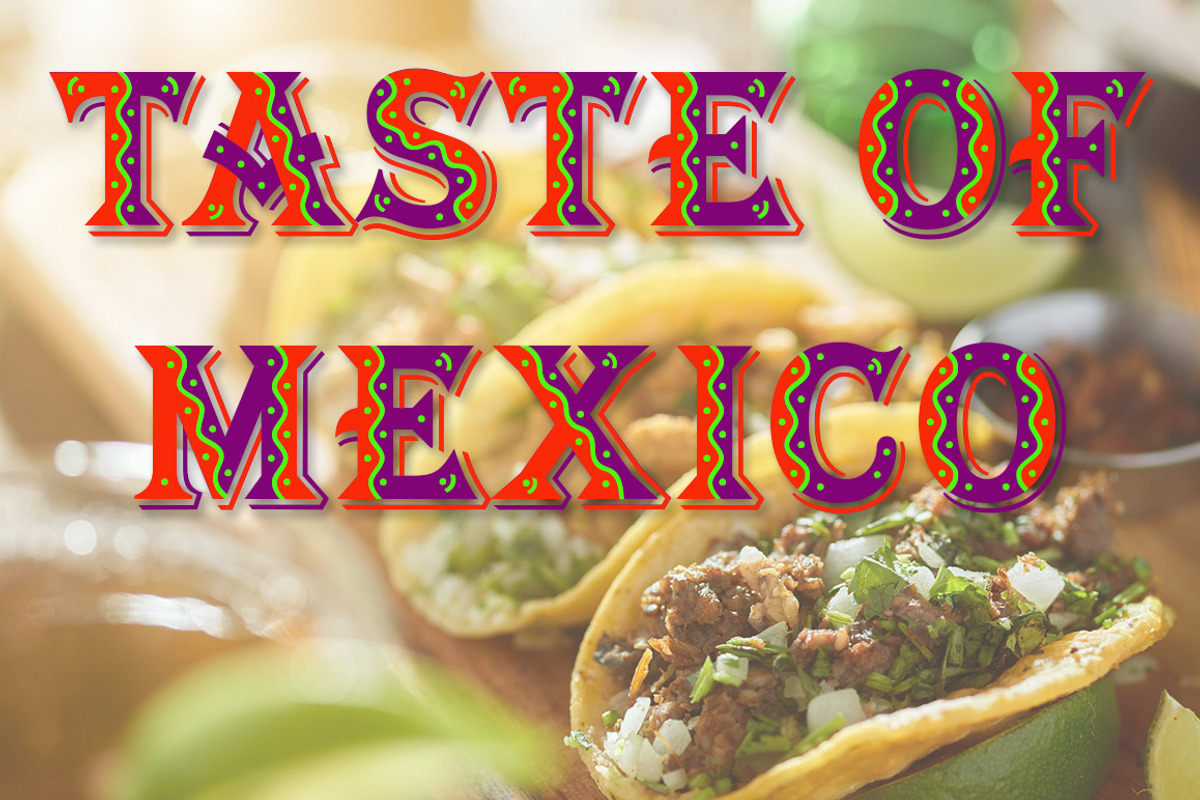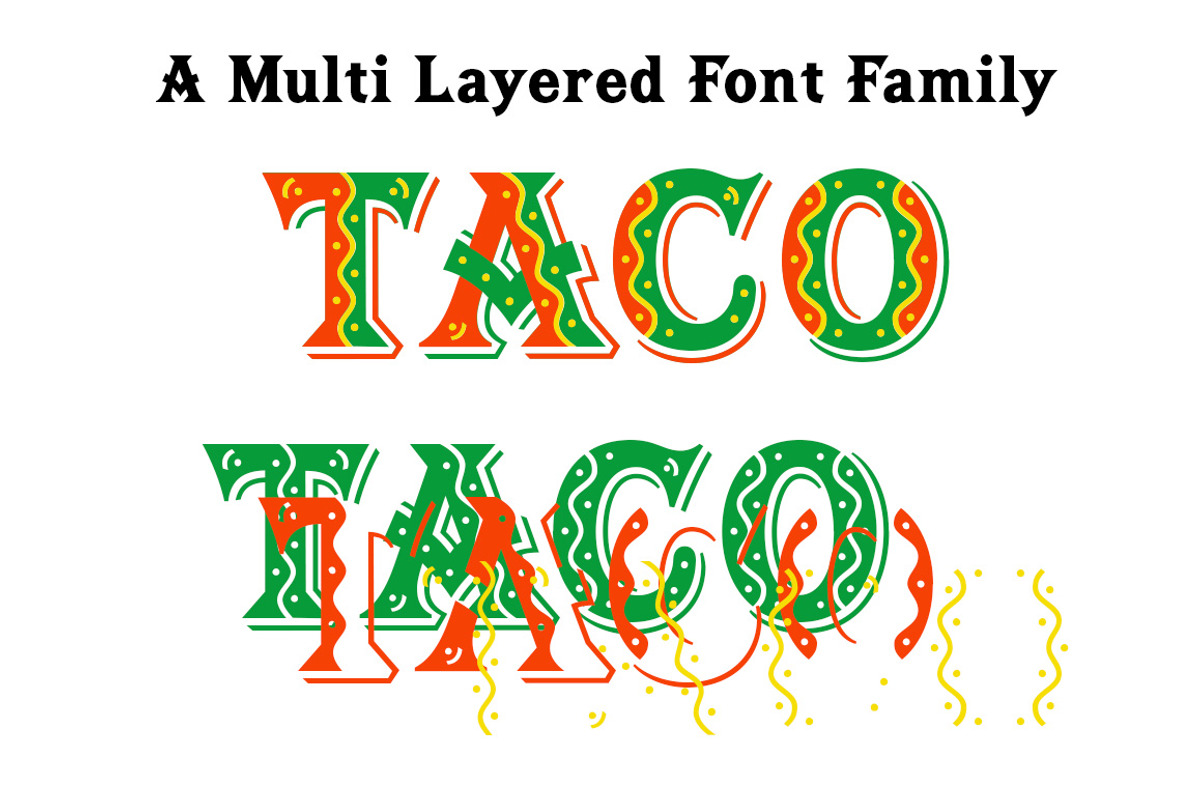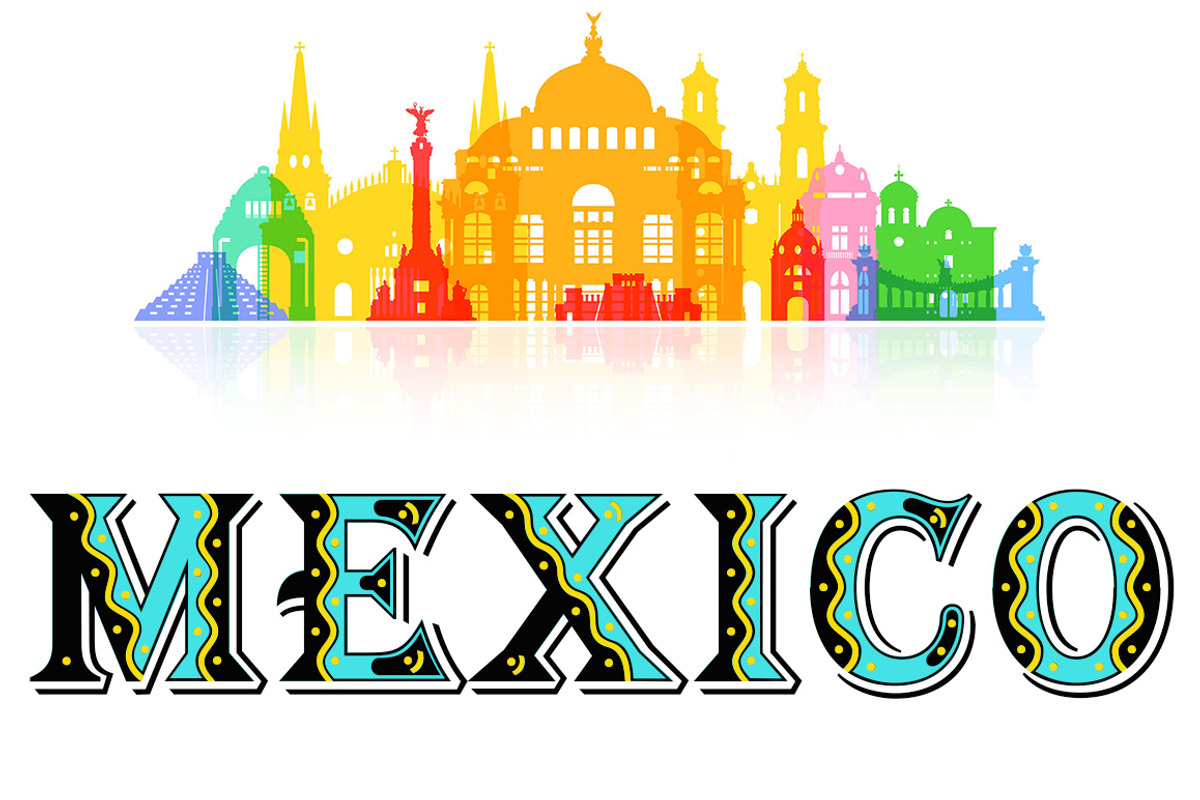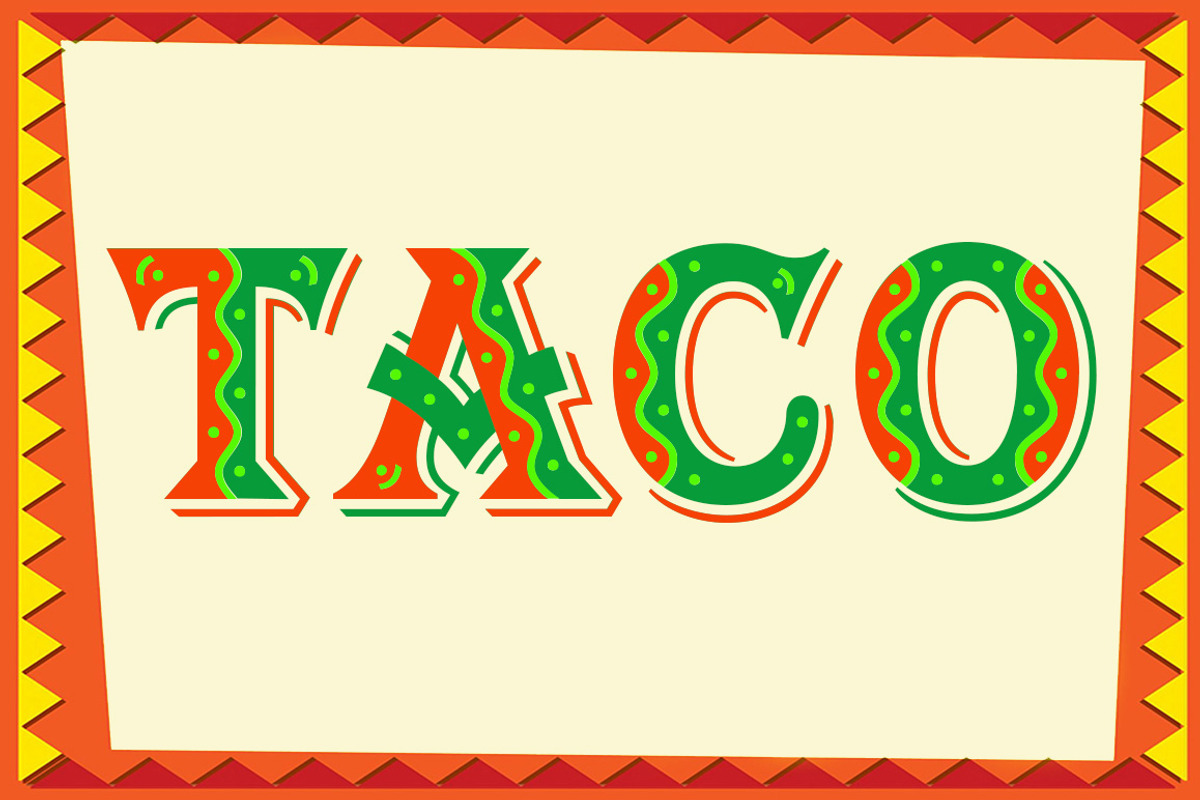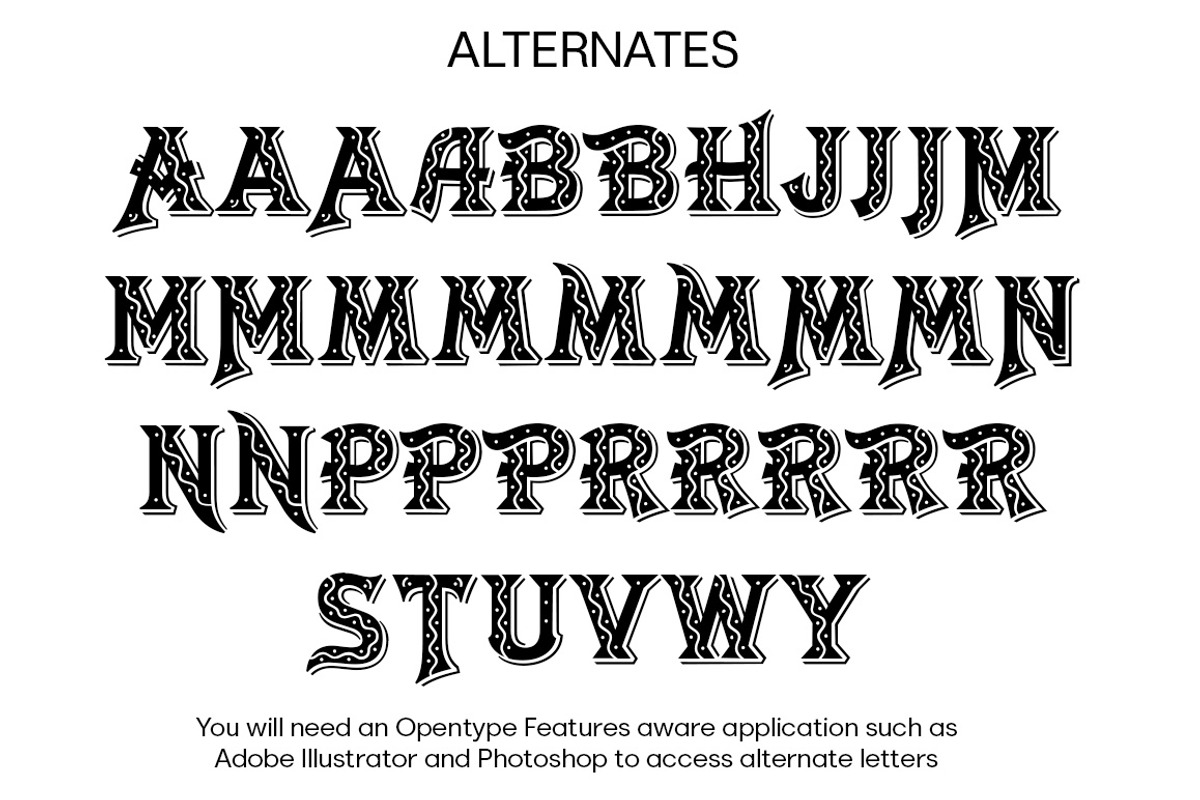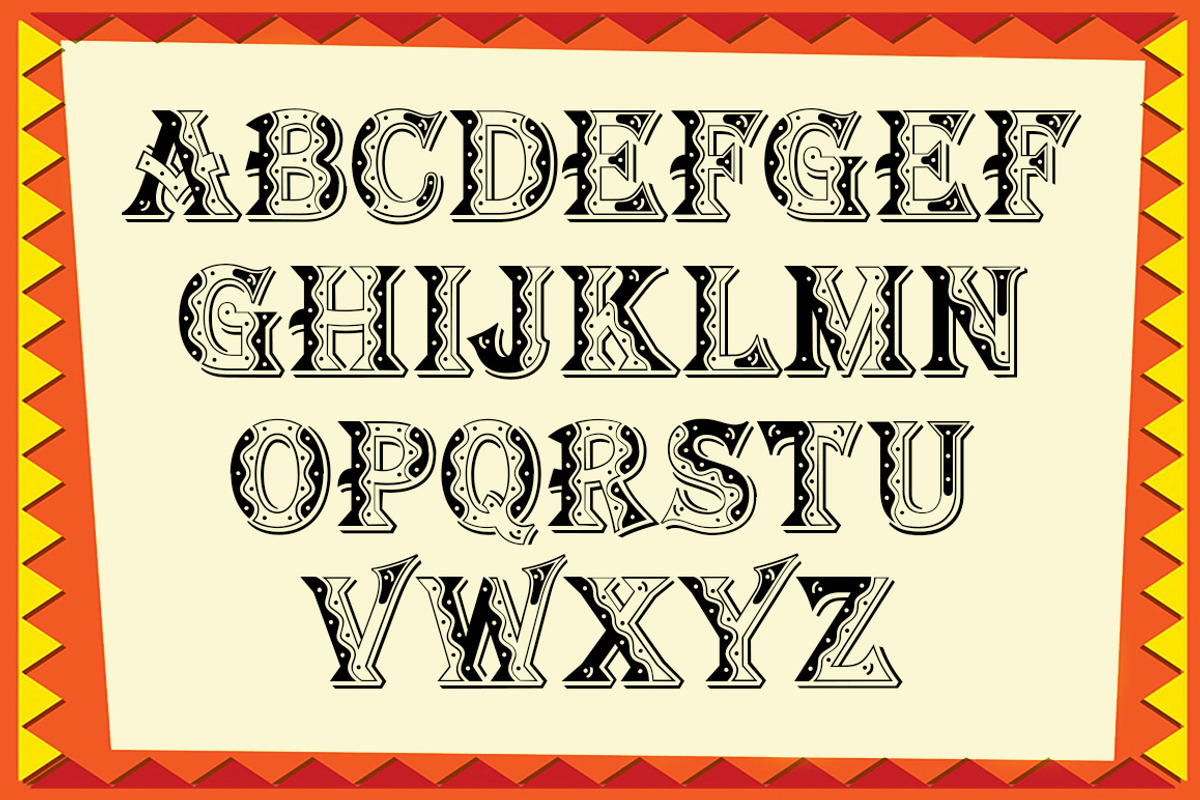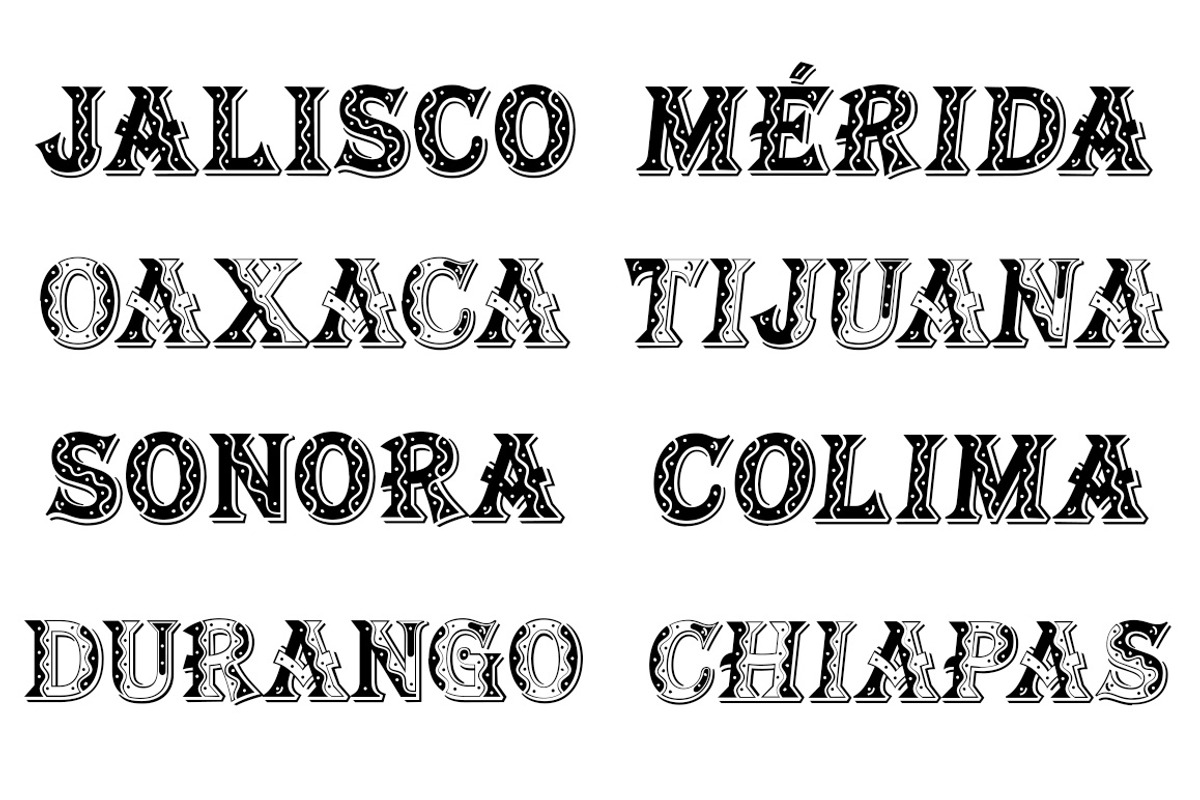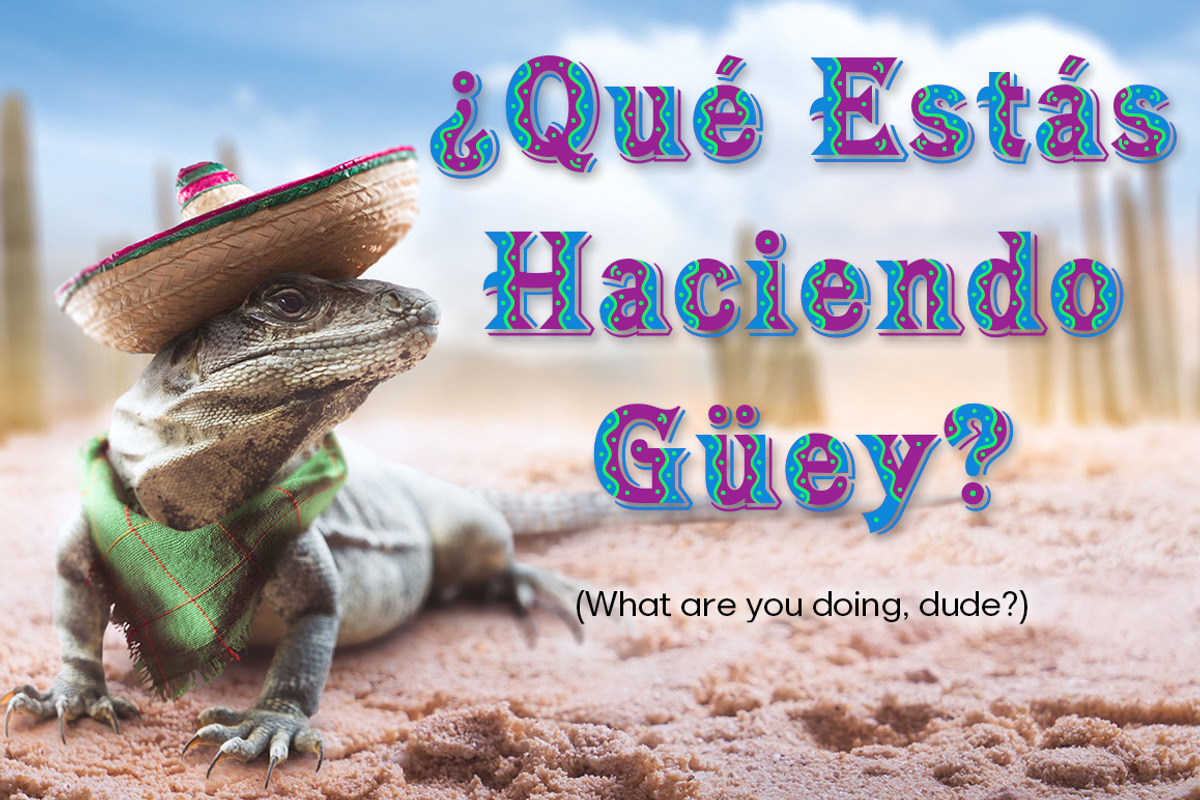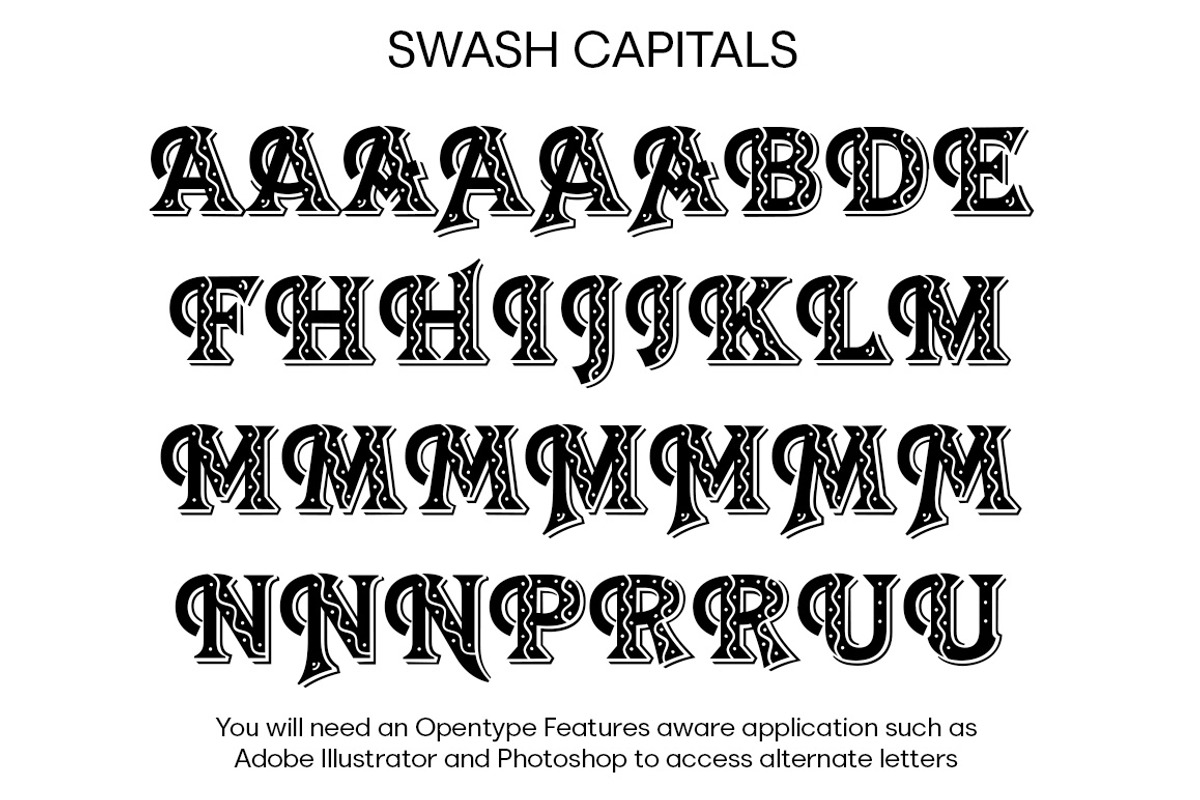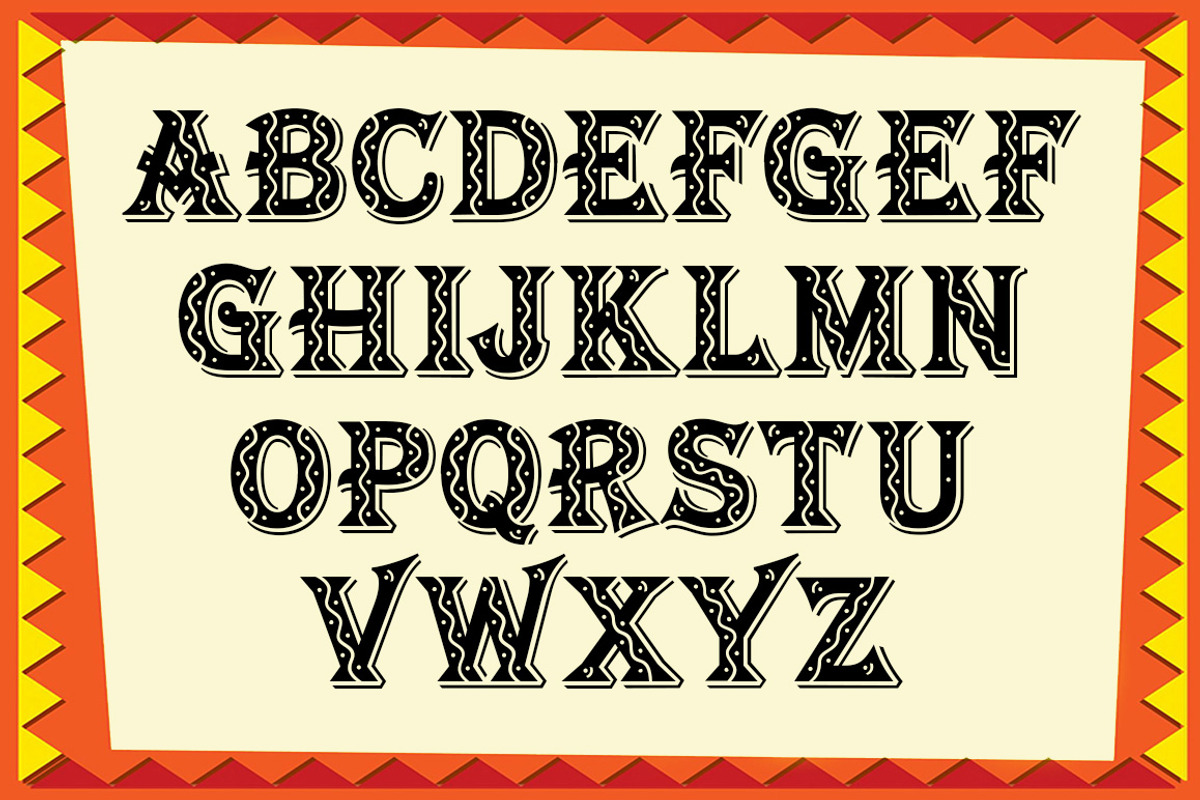
Taco
Taco is a new Mexican style font family based on our Tavern and Algerian Mesa type designs.
When I finished the extra heavier weights for Tavern I decided to play around with a decorated version, the extra bold letters allowed for much more room to work with an inlay pattern.
After experimenting with several designs I decided on a Mexican pattern because the original base font is very popular in Mexican restaurant logos and menus plus it's frequently used on Tequila bottle labels.
I originally planned three weights for the Taco font family, however, after completing the bold weight I've decided to release it now so you may put it to use while the regular and extra bold are being produced, sorry I can't estimate a release date for the two other weights.
Opentype features aware applications are also needed for accessing the many alternate glyphs in Taco, all the alternates that you love in our Tavern fonts are also available in Taco.
The inspiration for the Taco name of this font family was from a homemade Taco dinner I made for a guest at my house, after dinner I searched to see if there was a commercial font named Taco. There was no such font named Taco and the rest is history.
The old Stephenson Blake Algerian font has come a long way since 1908, and we're not done with it yet.